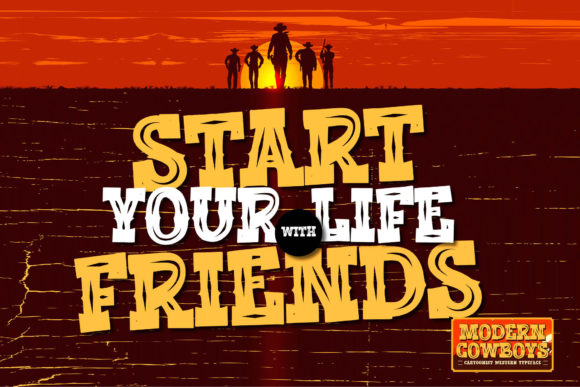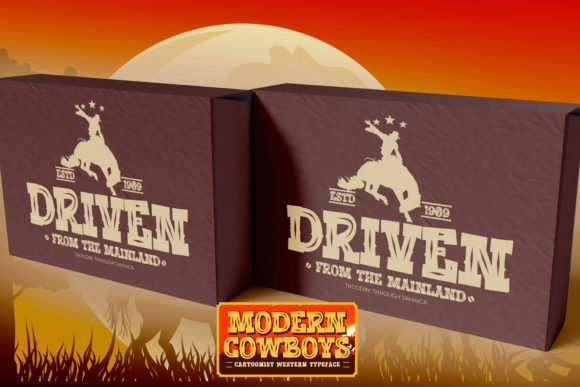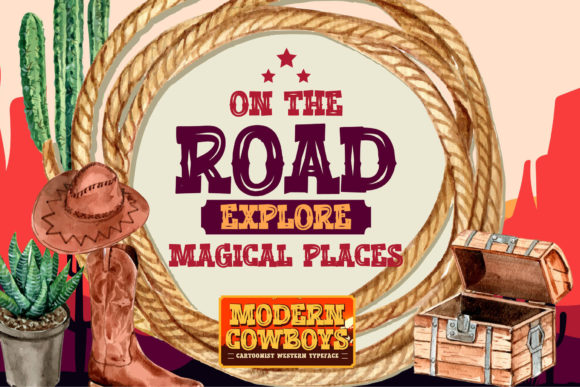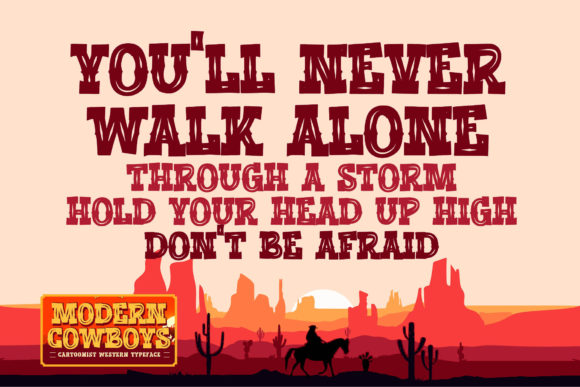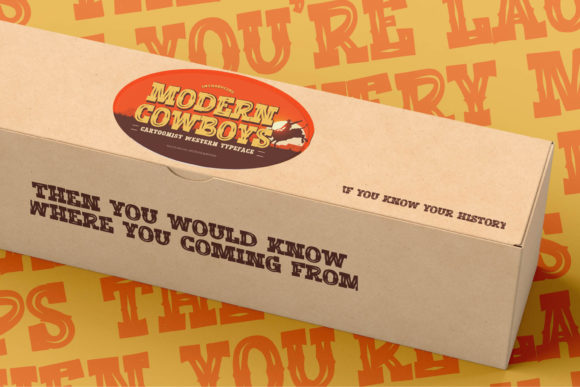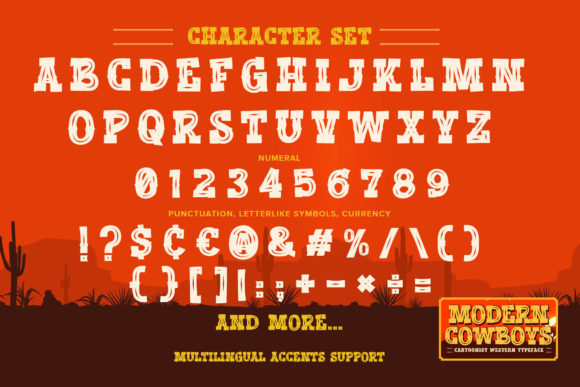
Introduction to Modern Cowboys Font
Imagine you’re rummaging through a dusty old western shop, surrounded by vintage posters and antique signs. As you run your fingers over the worn wood, you stumble upon a beautiful, hand-lettered sign that catches your eye. The intricate details, the elegant curves, and the bold lines all come together to transport you to a bygone era. This is the kind of inspiration that drives designers to create unique and captivating designs.
For those looking to infuse their creative projects with a touch of the wild west, the Modern Cowboys Font is an invaluable resource. This cartoonist serif font is inspired by vintage western products, making it the perfect addition to any design project. Whether you’re creating logos, printed quotes, or product packaging, the Modern Cowboys Font is sure to add a touch of sophistication and whimsy.
Key Features of Modern Cowboys Font
- Has a modern, bold aesthetic with a western twist, making it perfect for projects that require a unique and eye-catching font.
Honest Review: Modern Cowboys Font
I recently stumbled upon the Modern Cowboys Font while searching for a design resource for a creative project, and I must say, I’m impressed. This high-quality font is perfect for anyone looking to add a touch of the Wild West to their design.
Here are some things that work well about this font:
- ✨ Unique and stylish design: The Modern Cowboys Font has a distinctive look that sets it apart from other fonts.
- ✨ Versatile: This font is suitable for a wide range of creative projects, from posters to branding materials.
- ⚠️ Limited character set: The Modern Cowboys Font has a relatively small character set, which may limit its usability for certain projects.
Overall, I’m pleased with the Modern Cowboys Font and would recommend it to anyone looking for a unique and stylish design resource. Just be aware of its limitations and use it accordingly.
To get the most out of the Modern Cowboys Font, use it in combination with other design elements that evoke a rustic or western theme. You can also experiment with different font sizes and styles to create a unique look.
The Modern Cowboys Font is perfect for:
- Western-themed designs
- Rustic or country-inspired projects
- Outdoor or adventure-themed designs